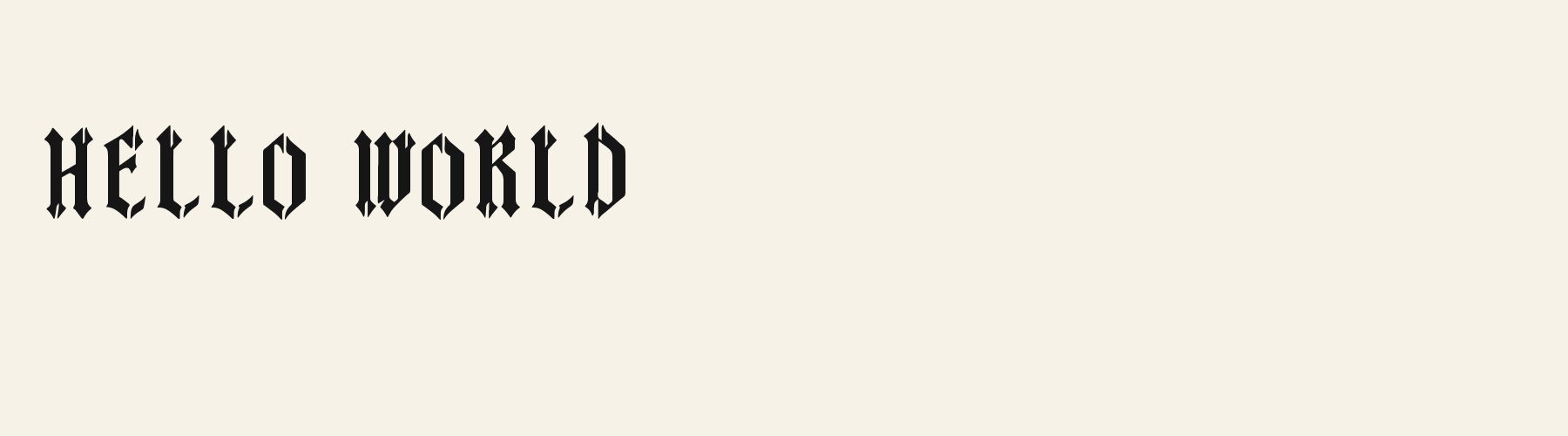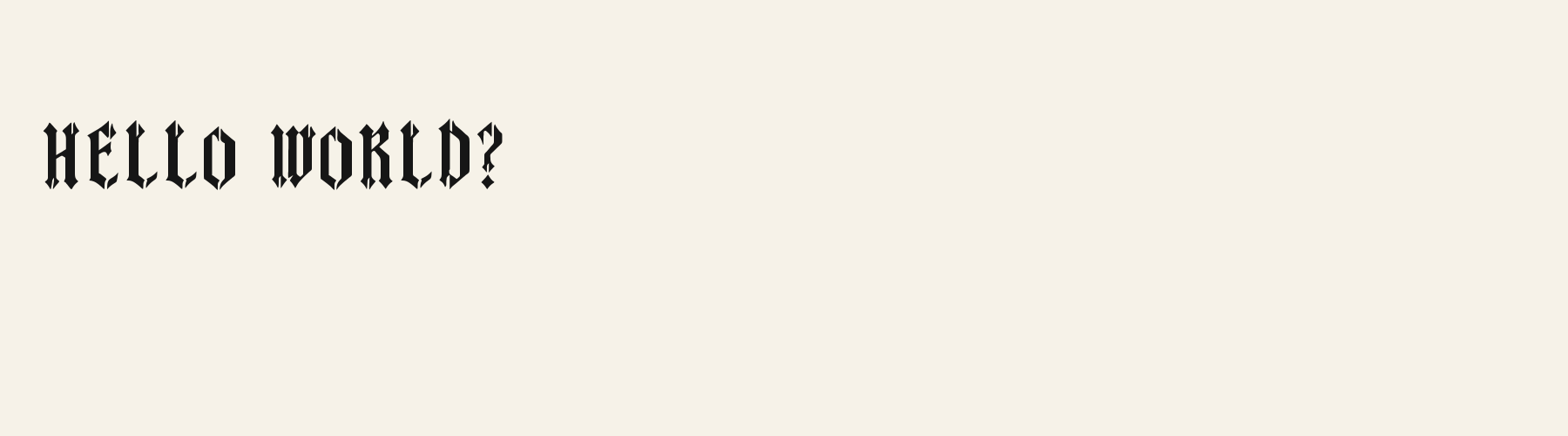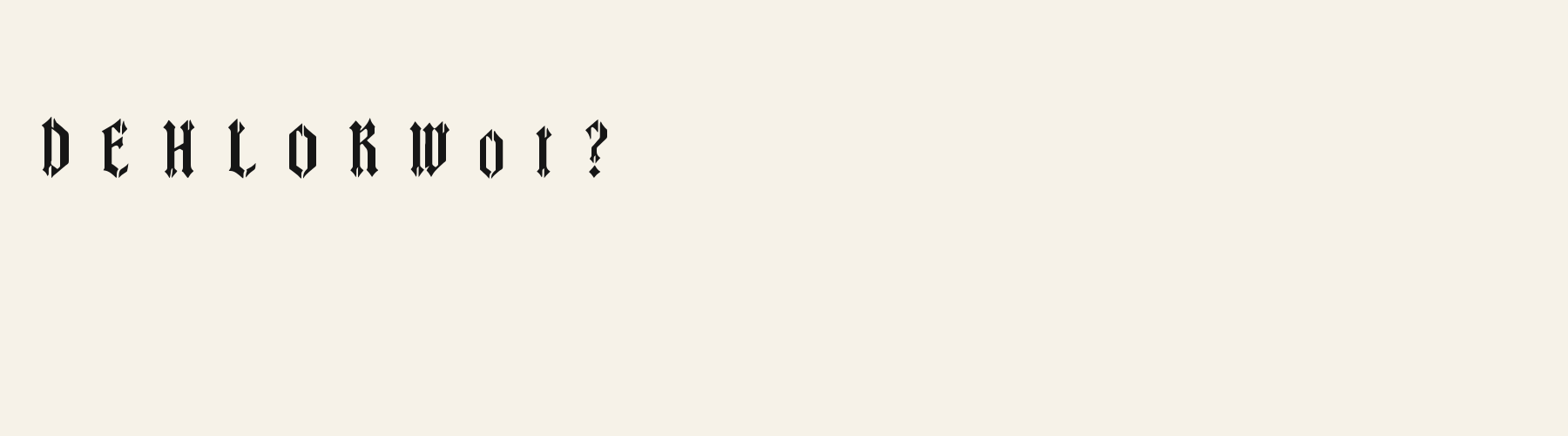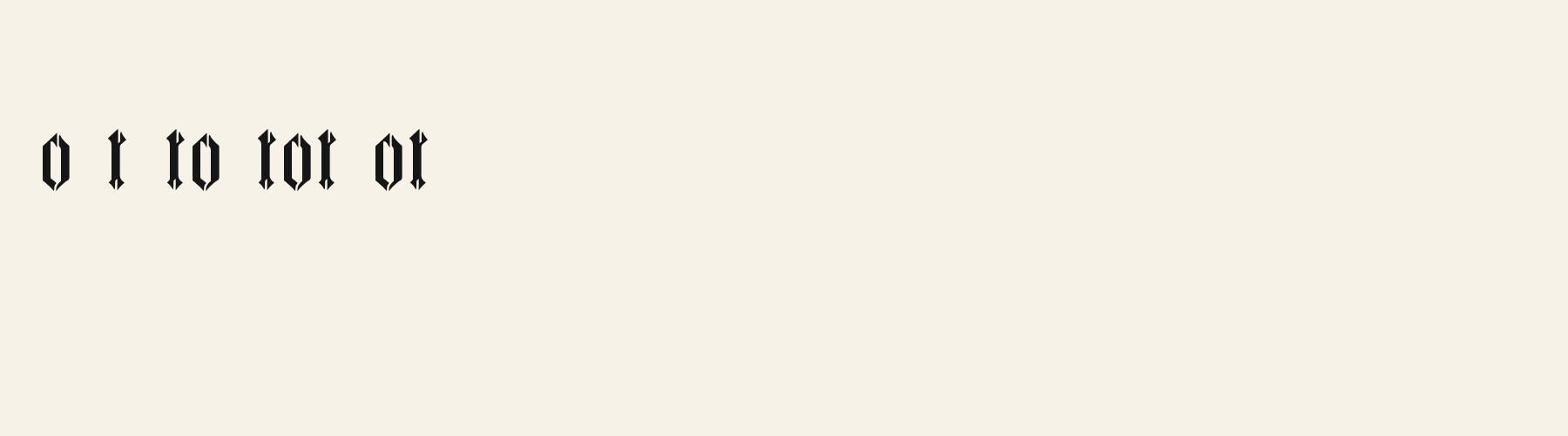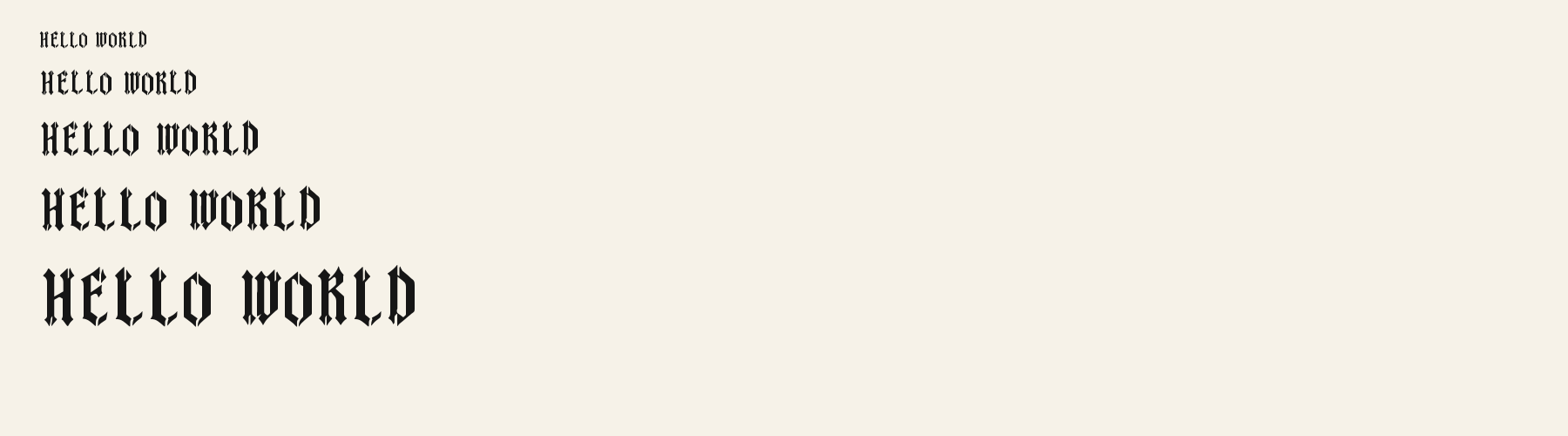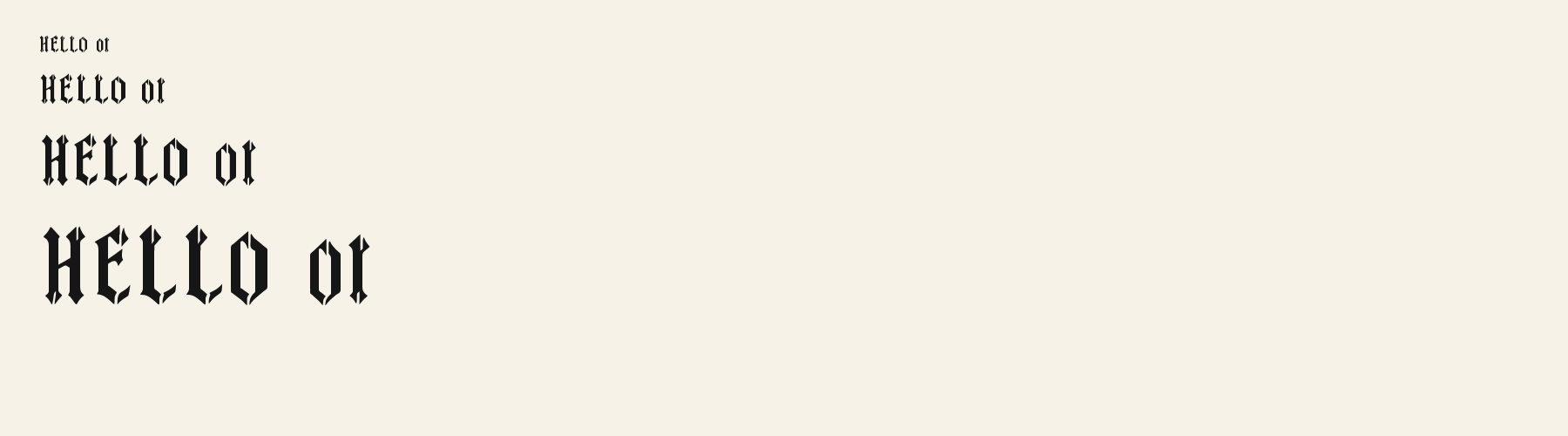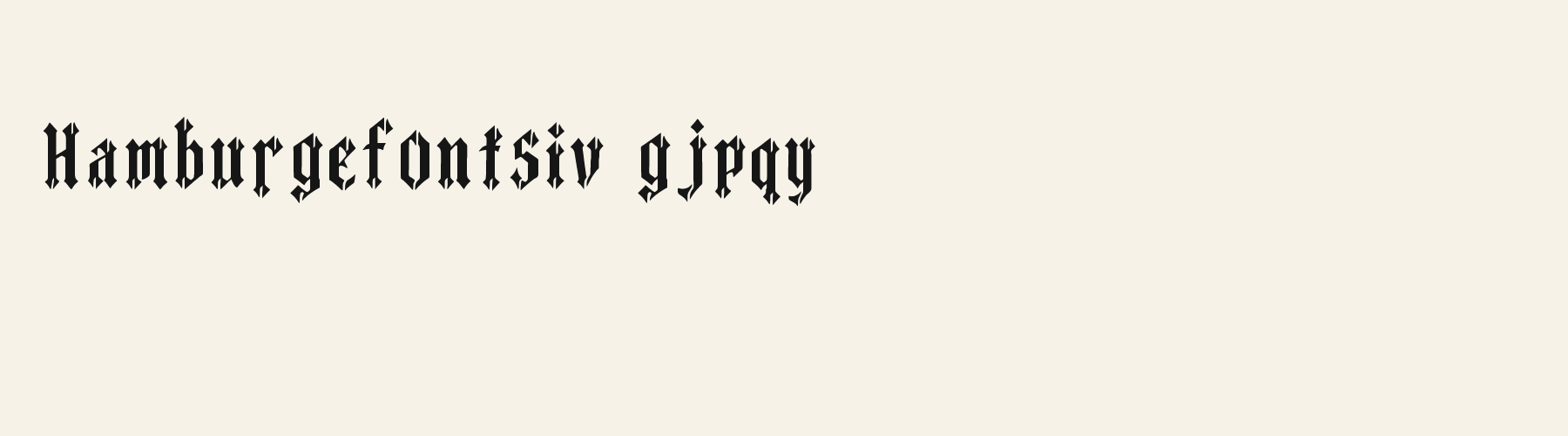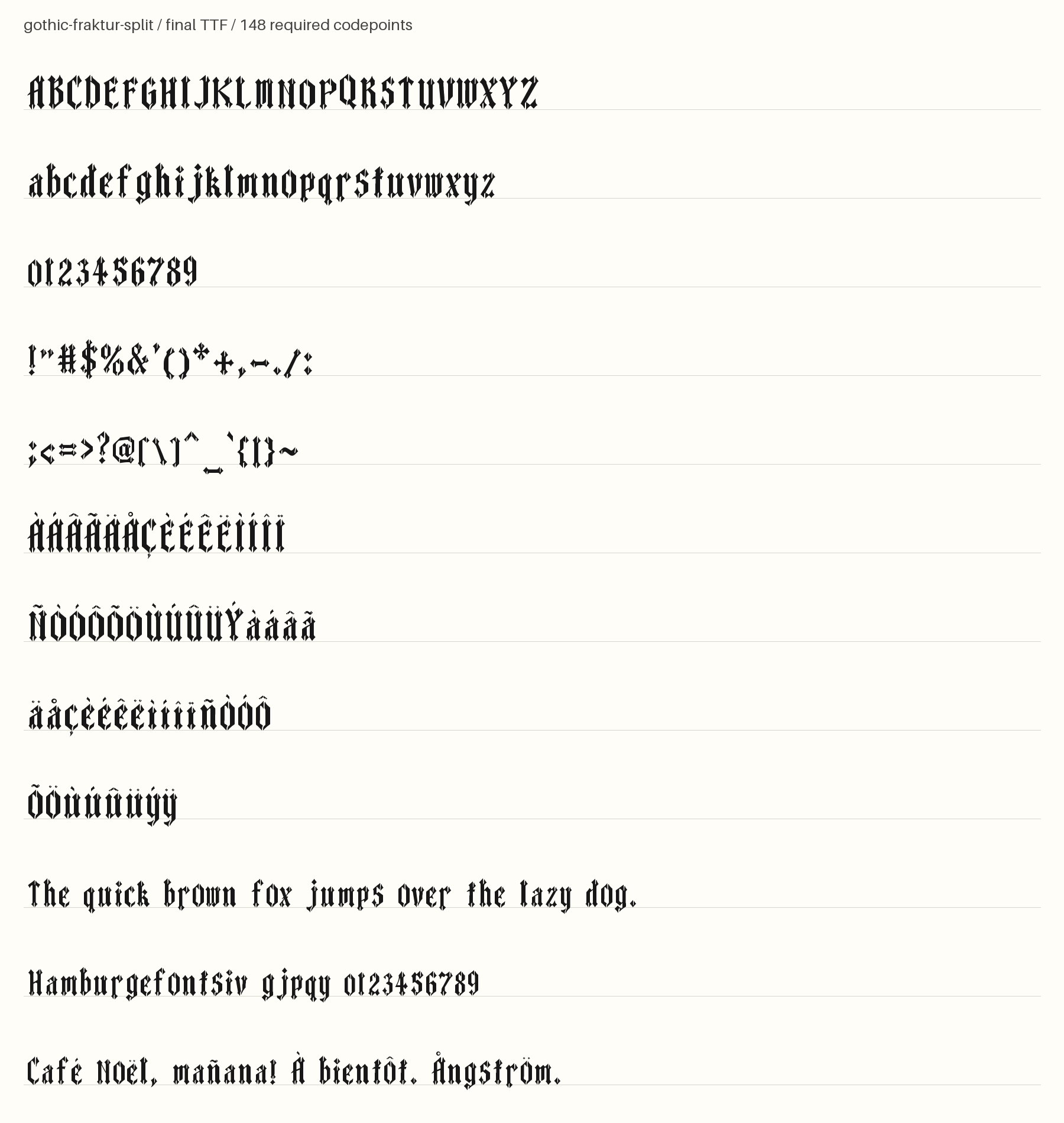
Gothic Modern Open
Gothic Fraktur Split is a decorative posters and titles. Strong vertical strokes with crisp split ends, no external ornaments. Best for decorative posters and titles.
Includes all 95 printable Basic Latin characters and 148 glyphs in total.
Verified language coverage: English (Basic Latin)